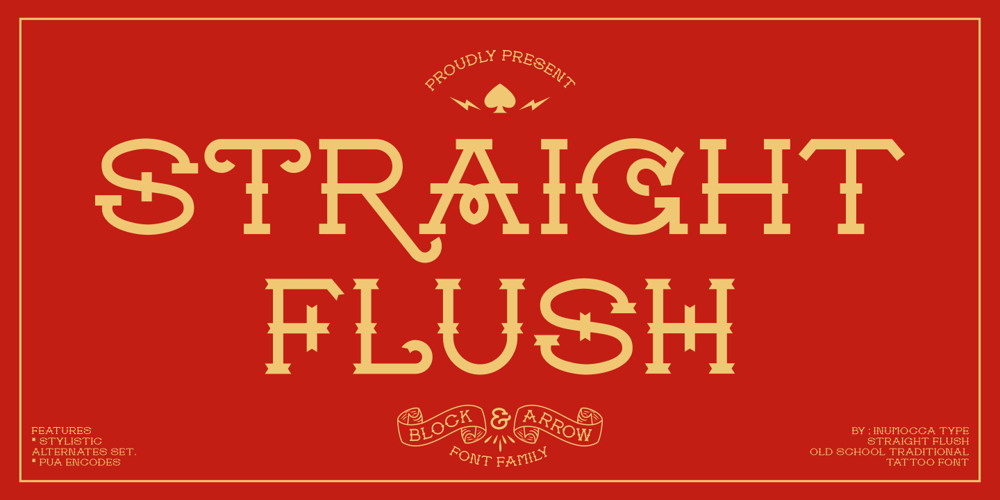
Straight Flush Block Font Family was designed by Inu Mocca and published by Inumocca. Straight Flush Block contains 2 styles and family package options. Straight Flush font family inspiration from Old school traditional tattoo font, simple and Strong Charachters.come with some simple Alternates for covering your Project, like Branding, Movie Title, Headline Letter, Bookcover or Book Content, Magazine cover, Poster, Quotes Lettering, Logos, and more your project design.- Unique glyphs- Multilingual Characters- UPPERCASE- Lowercase- Numeric- Symbol- Punctuation Character- Alternatesinumocca type Studio